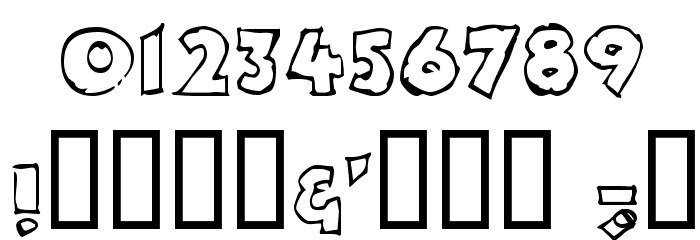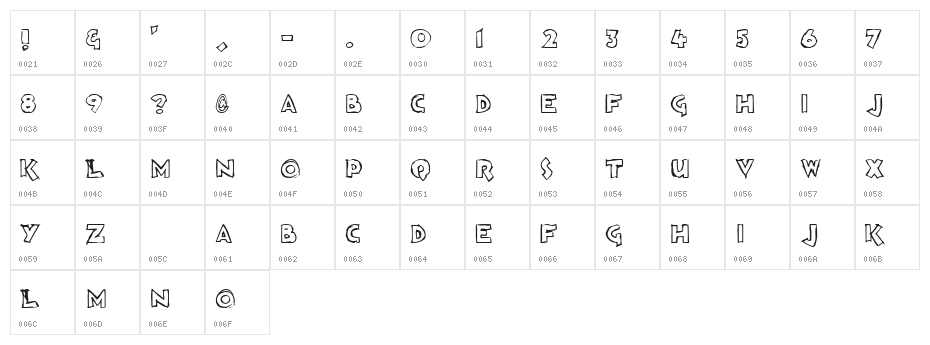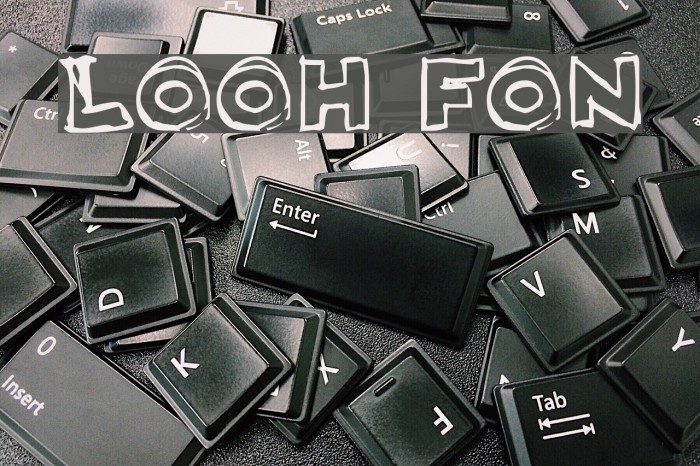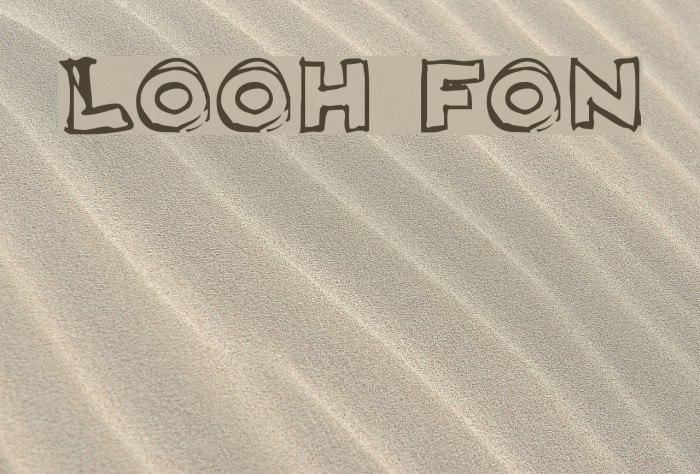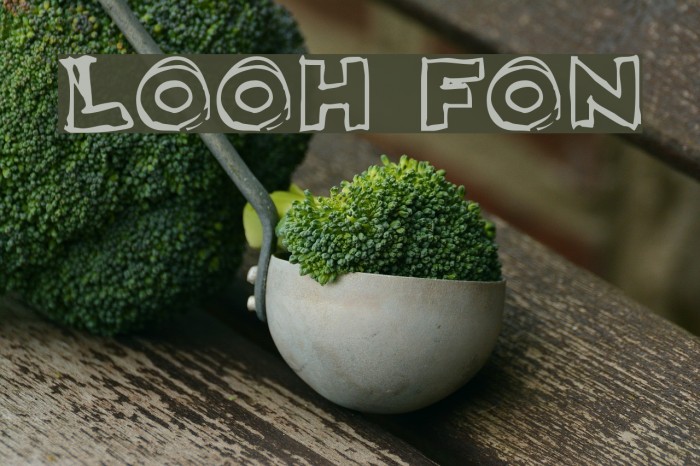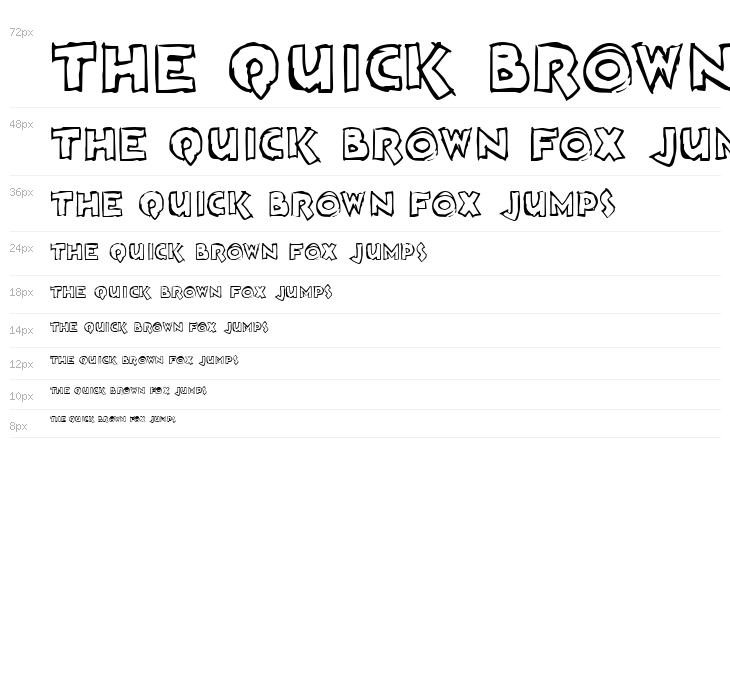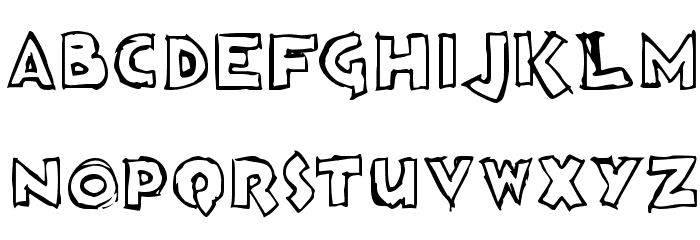
Loosh Font
Loosh Description
This font features a playful and bold design with a hand-drawn aesthetic. Each character is outlined with a thick, uneven stroke, giving it a cartoonish and dynamic appearance. The letters have a slightly irregular shape, adding to the whimsical and informal style. The numbers and special characters maintain this quirky look, ensuring consistency throughout the set. This font is ideal for projects that require a fun and eye-catching typeface, such as children's books, comic strips, or playful branding materials.
Overall StylePlayful
Proposed ProjectsIdeal for children's books, comic strips, playful branding, and eye-catching posters.